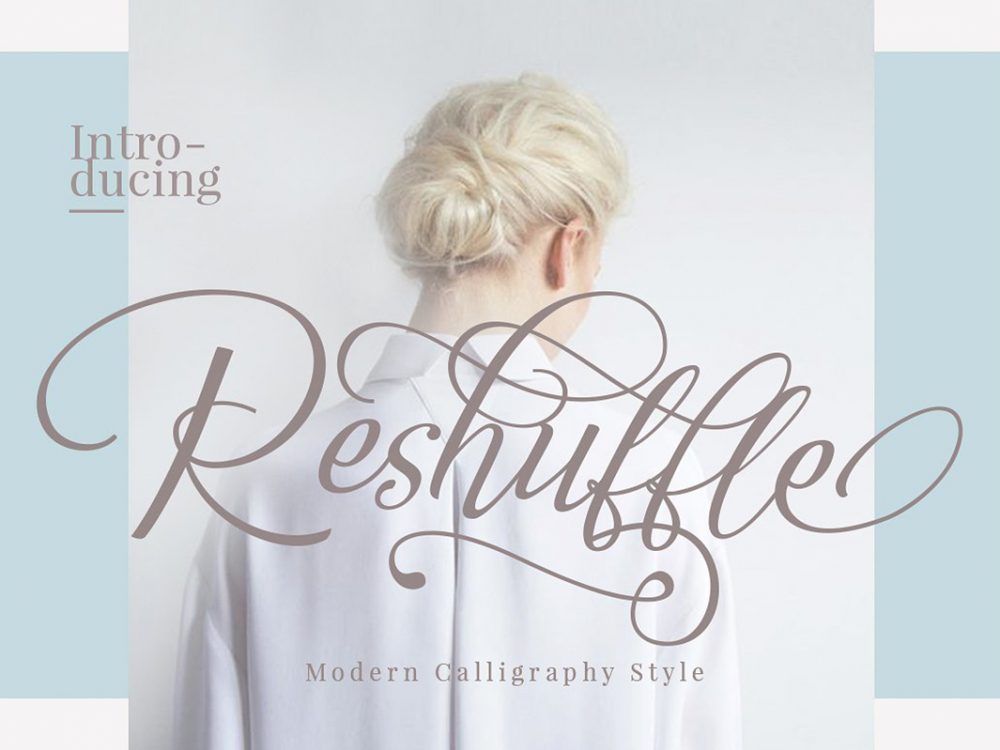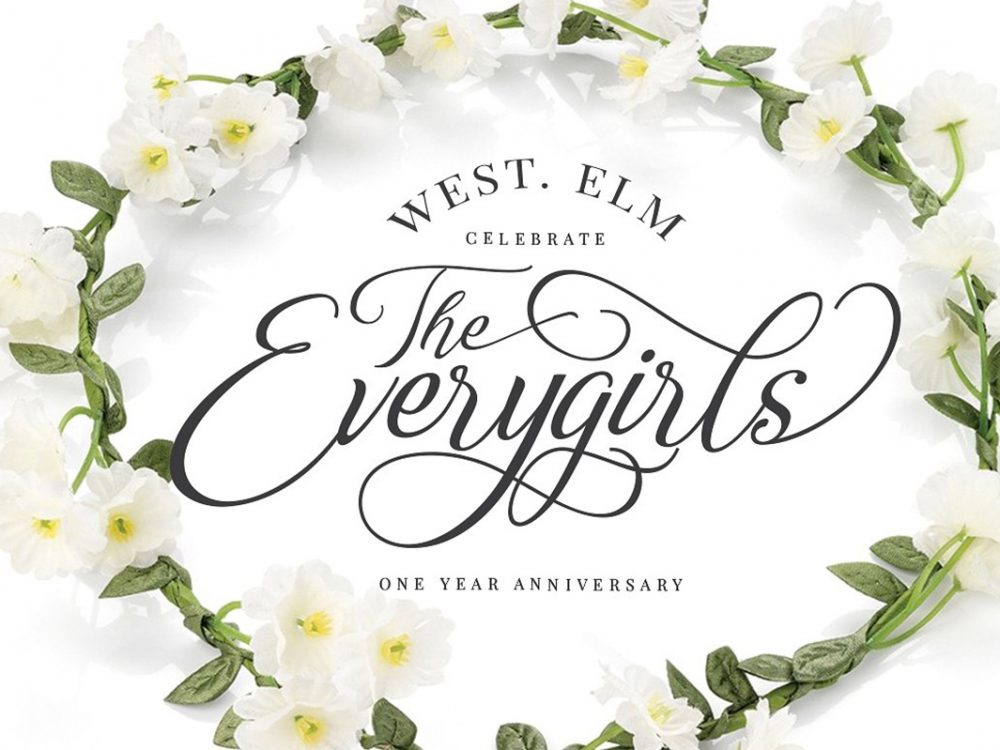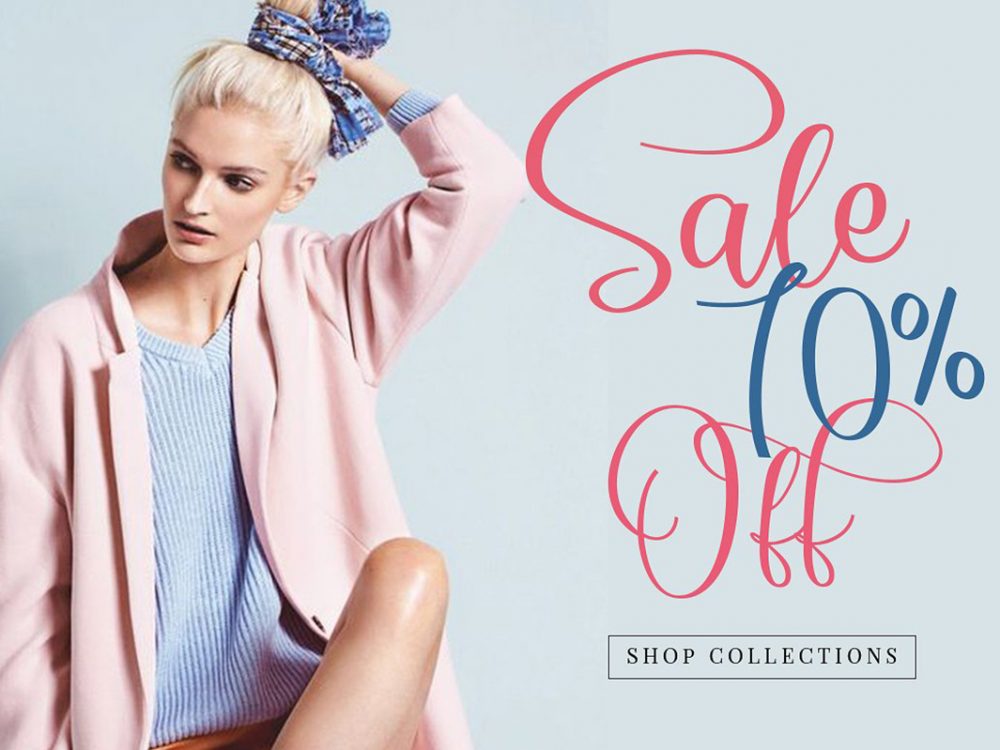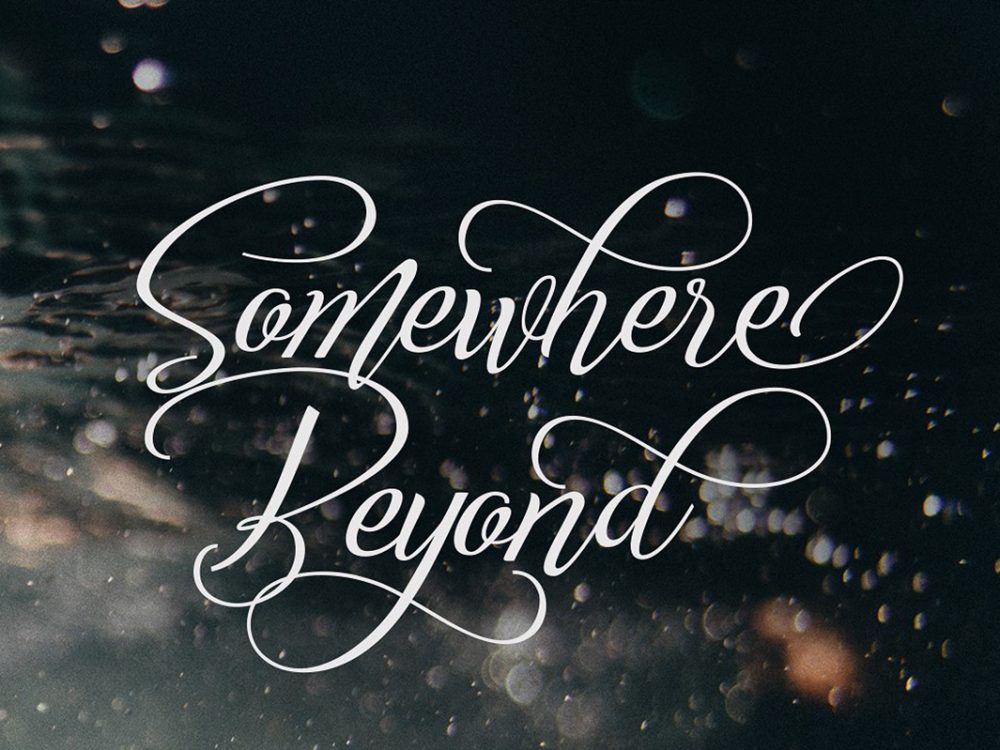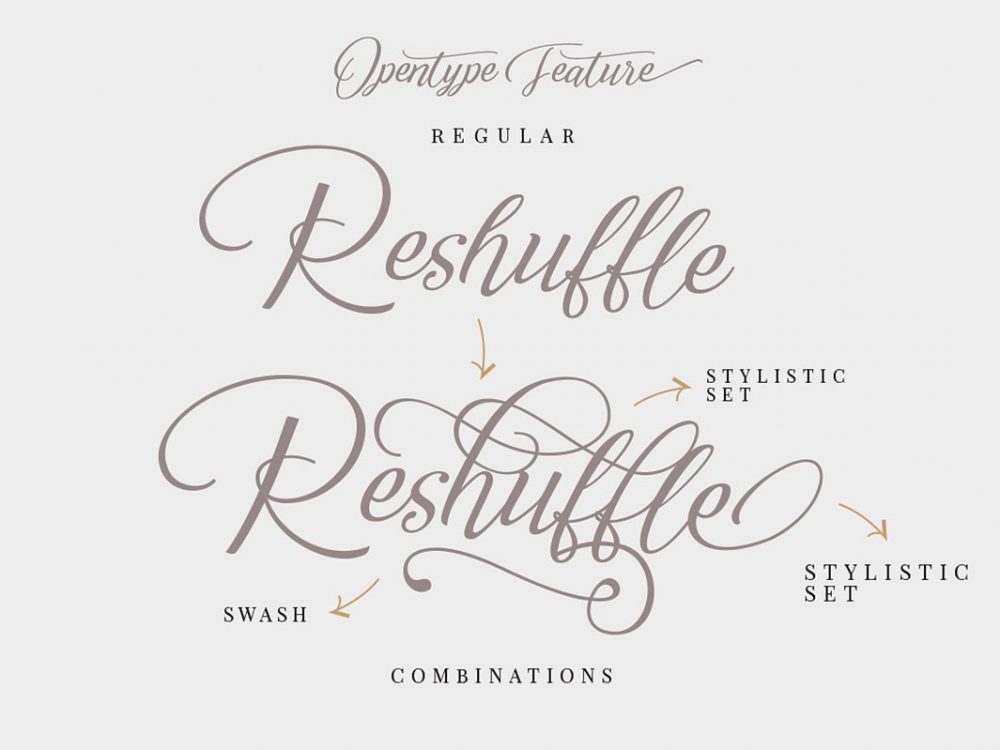
Reshuffle Script Free Demo Font
Reshuffle Script Free Demo Font is a demo version of a beautiful modern handwritten font featuring calligraphy and elegant style. You can use this font to create various design projects that require a scripted font. These can be posters, wedding invitations, cards, branding, flyers, prints, and more. If you like this demo version, then you may want to check out the full version.